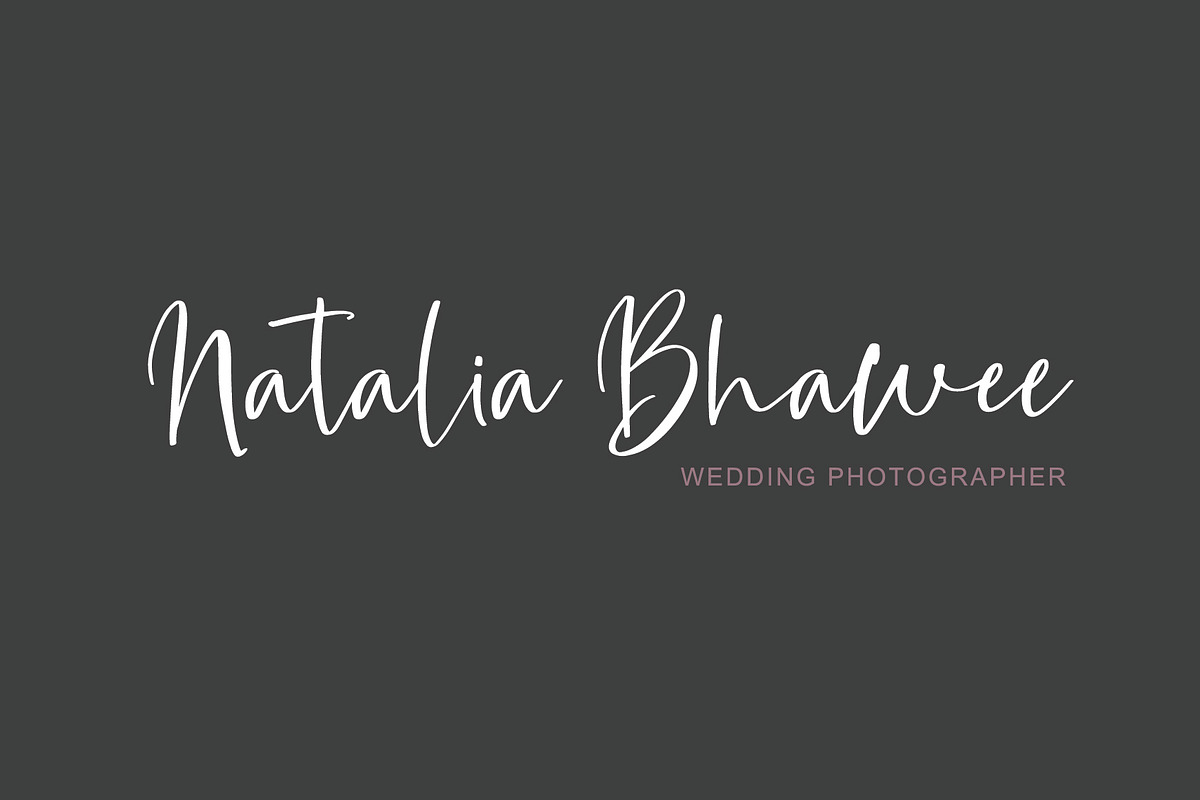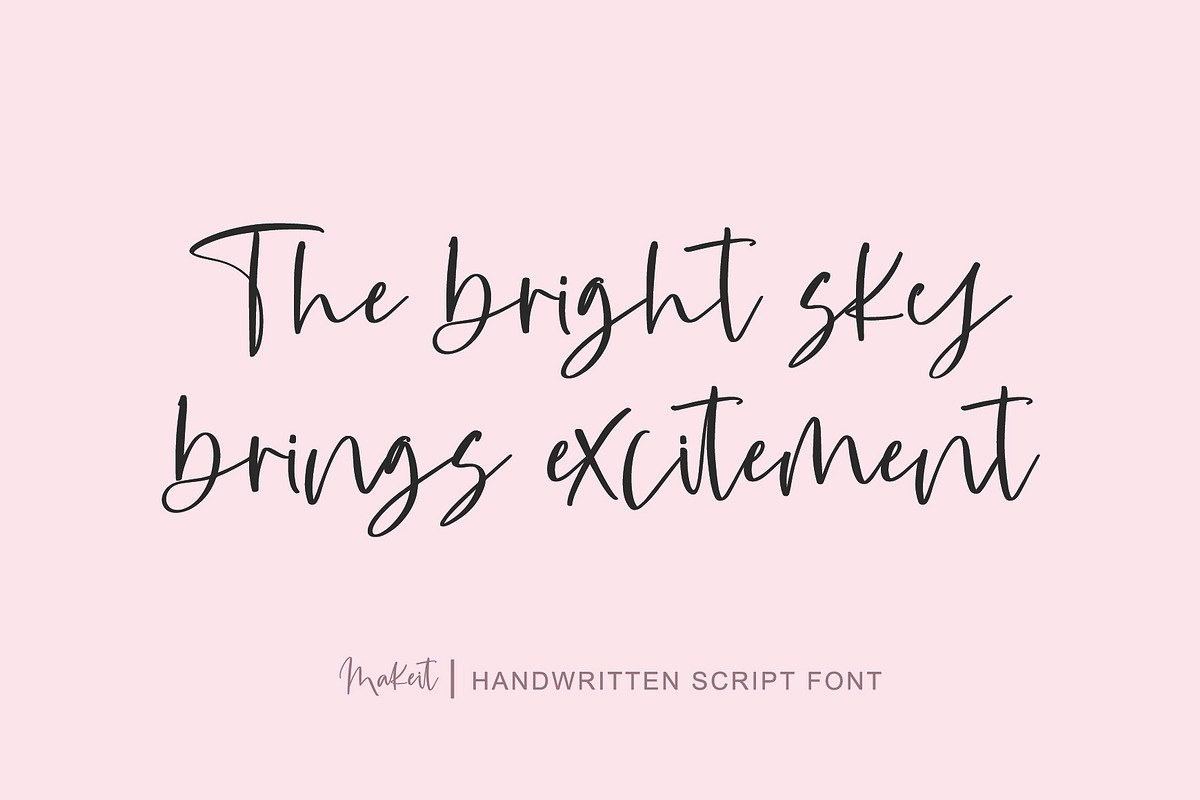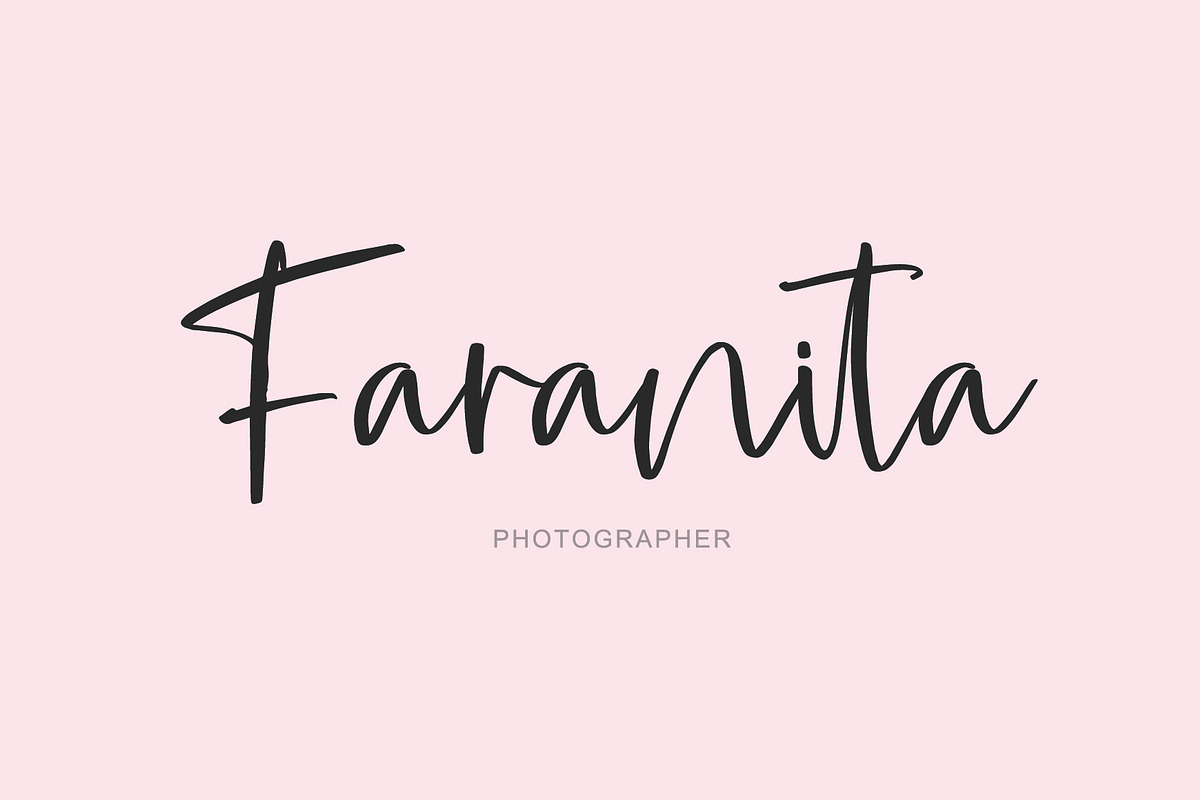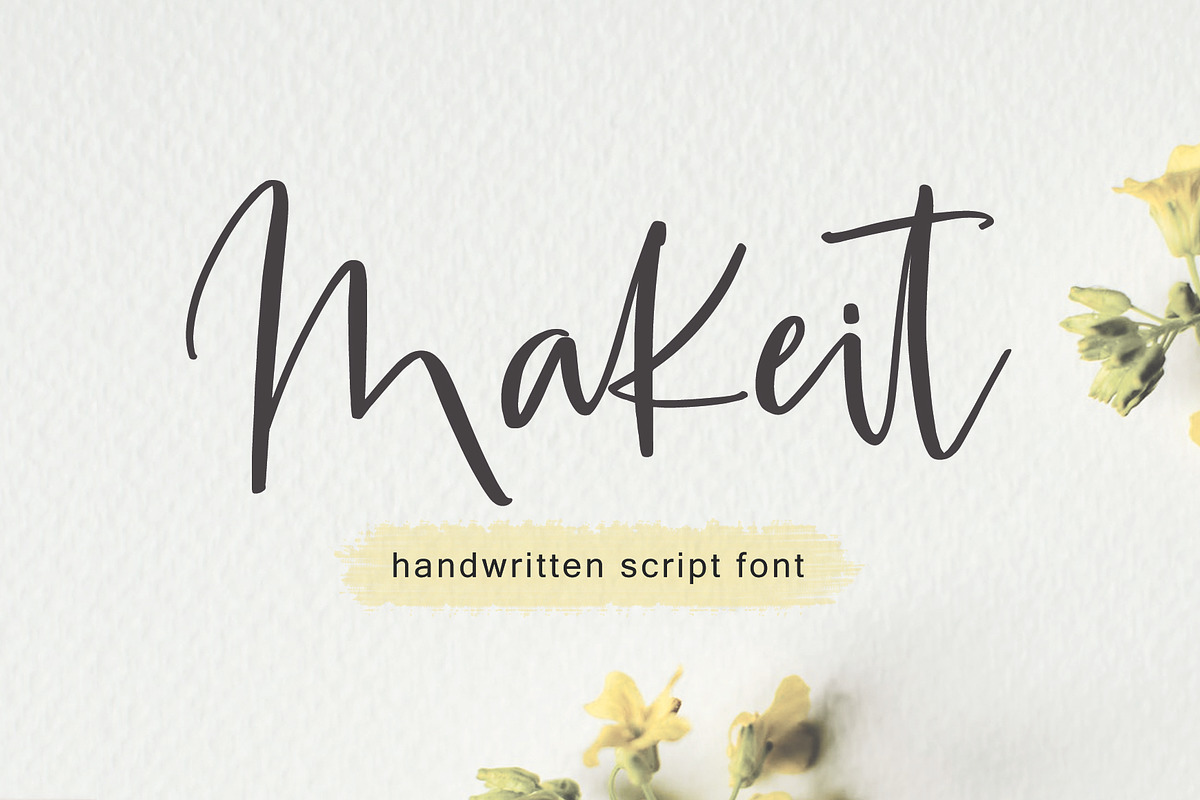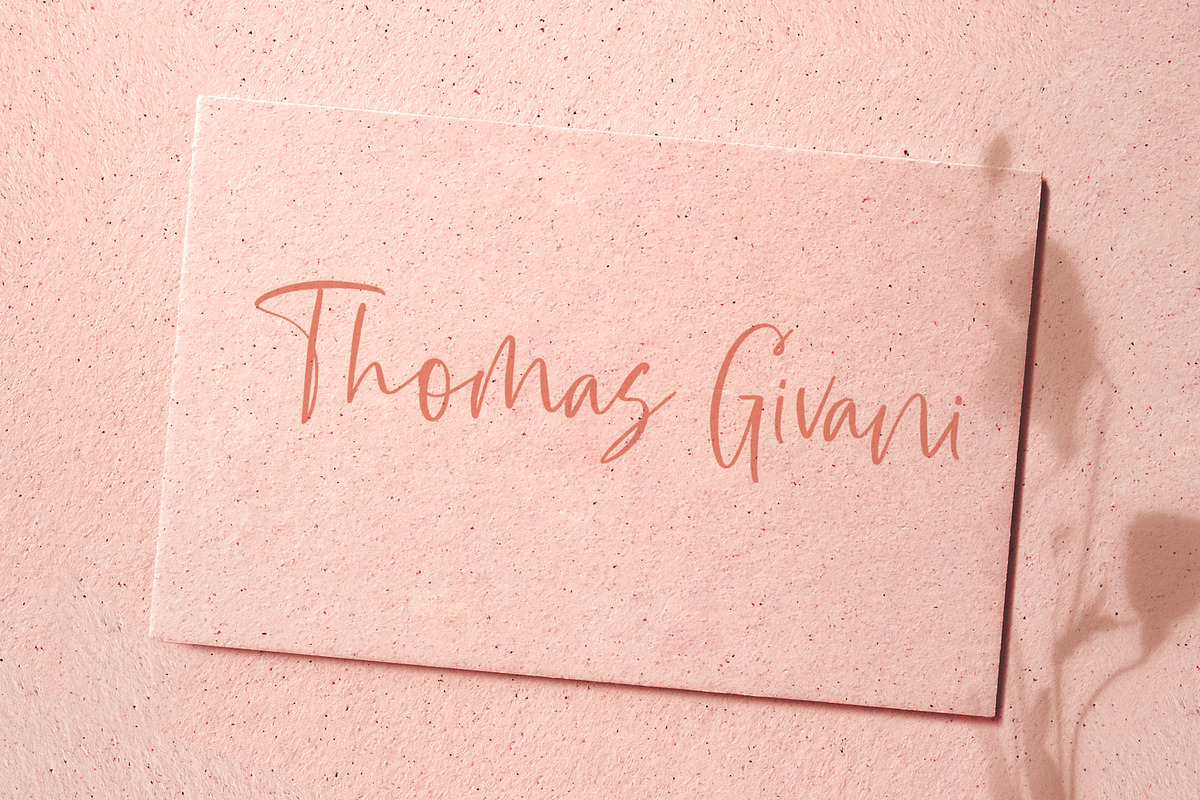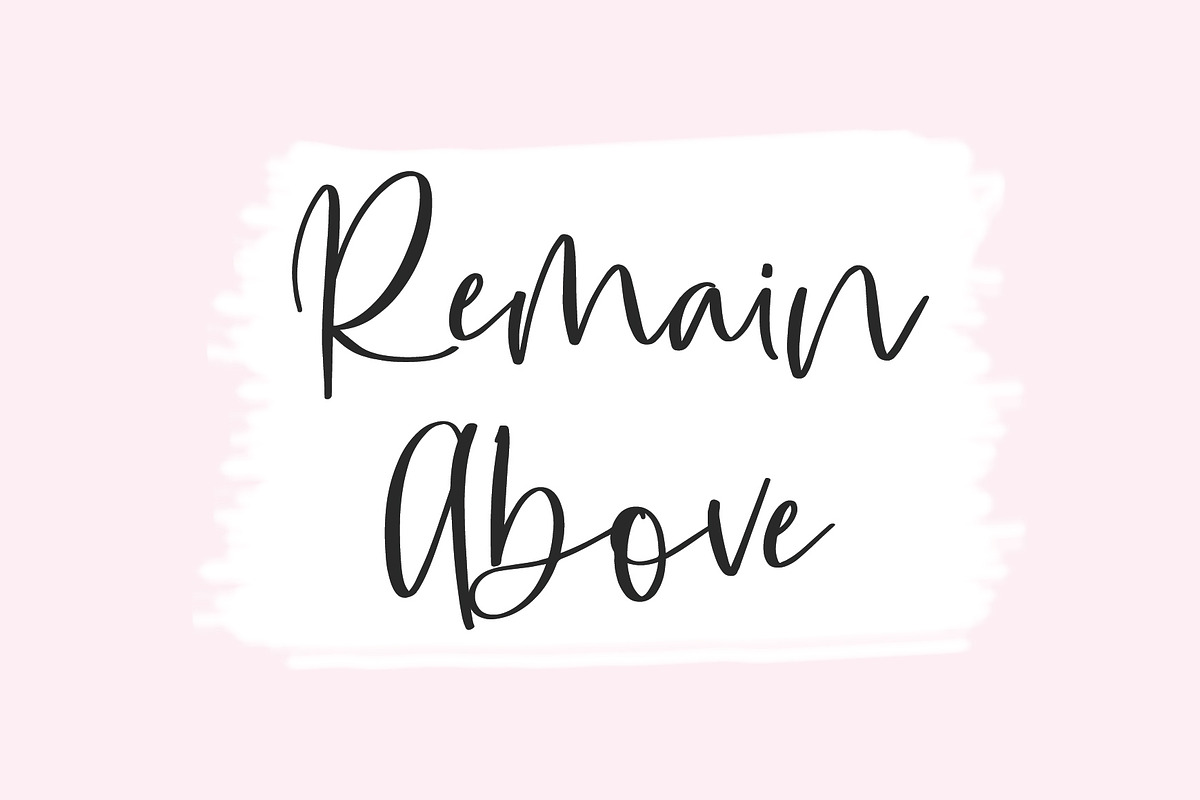
Makeit | handwritten script font
Makeit is a handwritten font with a fun, modern look!
This font is perfect for branding, digital designs, for logos, social media, websites, blogs, instagram, cards, business cards, branding, and more!